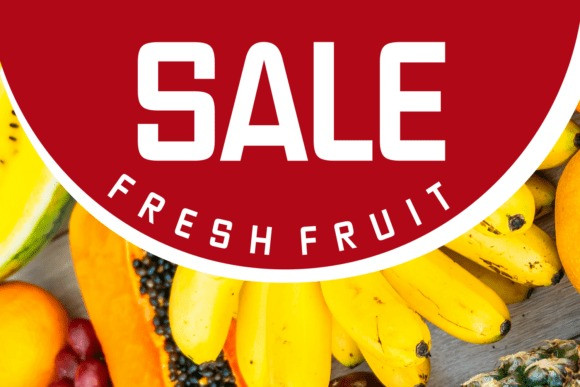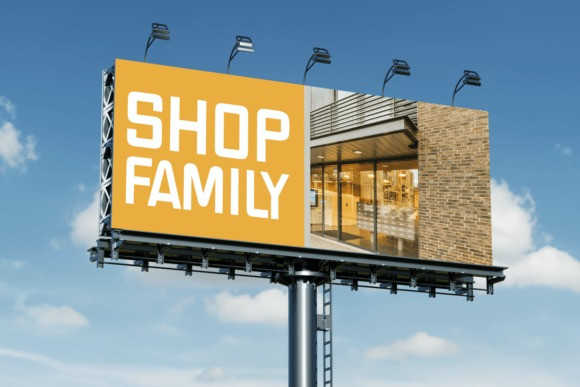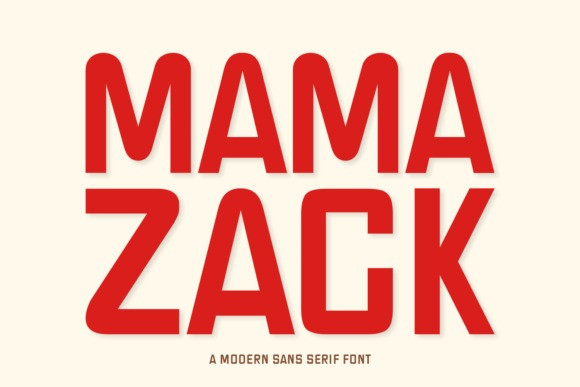
Mama Zack Font
Mama Zack Font – a versatile and elegant Sans Serif typeface. Simultaneously lavish and modern, this font effortlessly adds an air of sophistication to any display. It’s incredibly versatile, lending itself beautifully to banners, fashion prints, crafts, and even Cricut designs. Consequently, Mama Zack is extensively used in logos and brand identities, known for its bold strokes that exclaim confidence.
If you’re looking to create a buzz on your social media, Mama Zack is your go-to font – popularly utilized on Mother’s Day and in other trendy posts. Enhance your love notes or logos with this font for a charming touch. Also, this font is a hit among magazine designers, thanks to its captivating look that captures readers’ attention in an instant. Its enthralling flair and perfectly rounded curves might make it your inevitable choice for summer-themed designs as well.
Boasting a multi-lingual versatility, Mama Zack extends support to Eastern European languages as well. All in all, Mama Zack is stylish yet classic, trendy yet timeless, making it a perfect choice for those seeking a font that remains popular across seasons, geographies, and design styles.